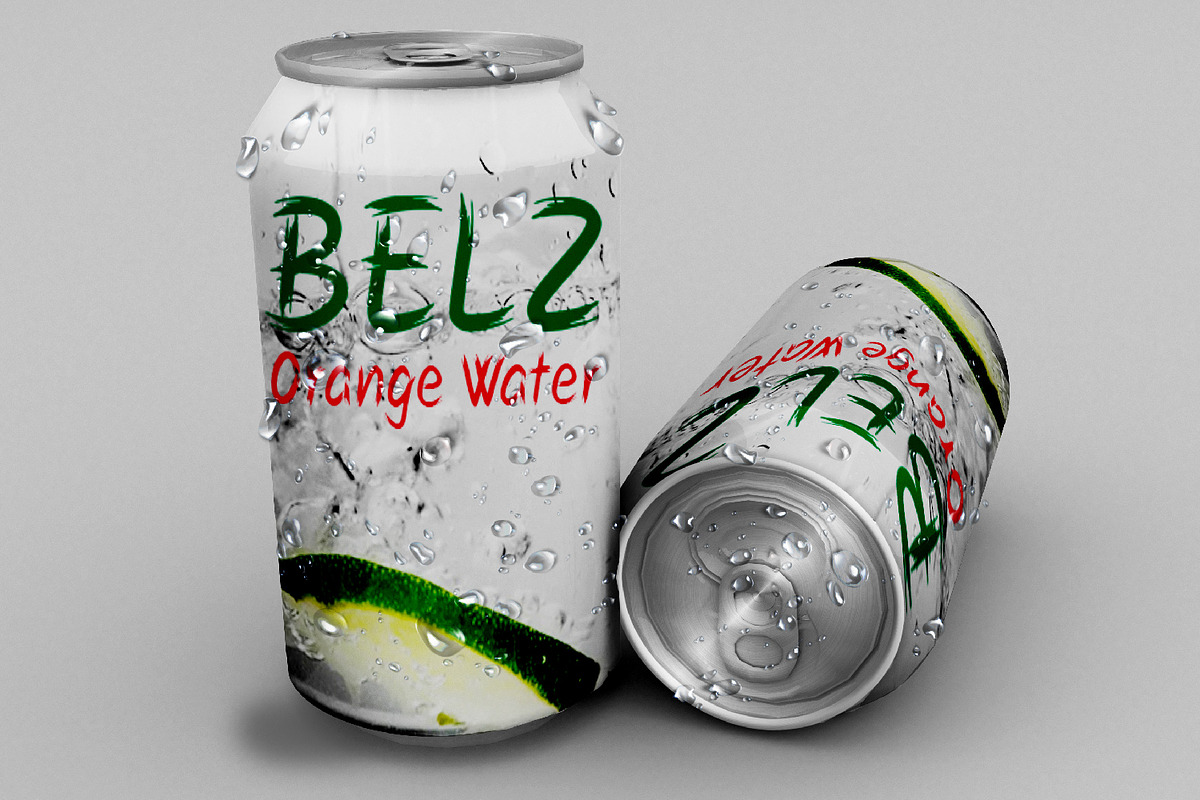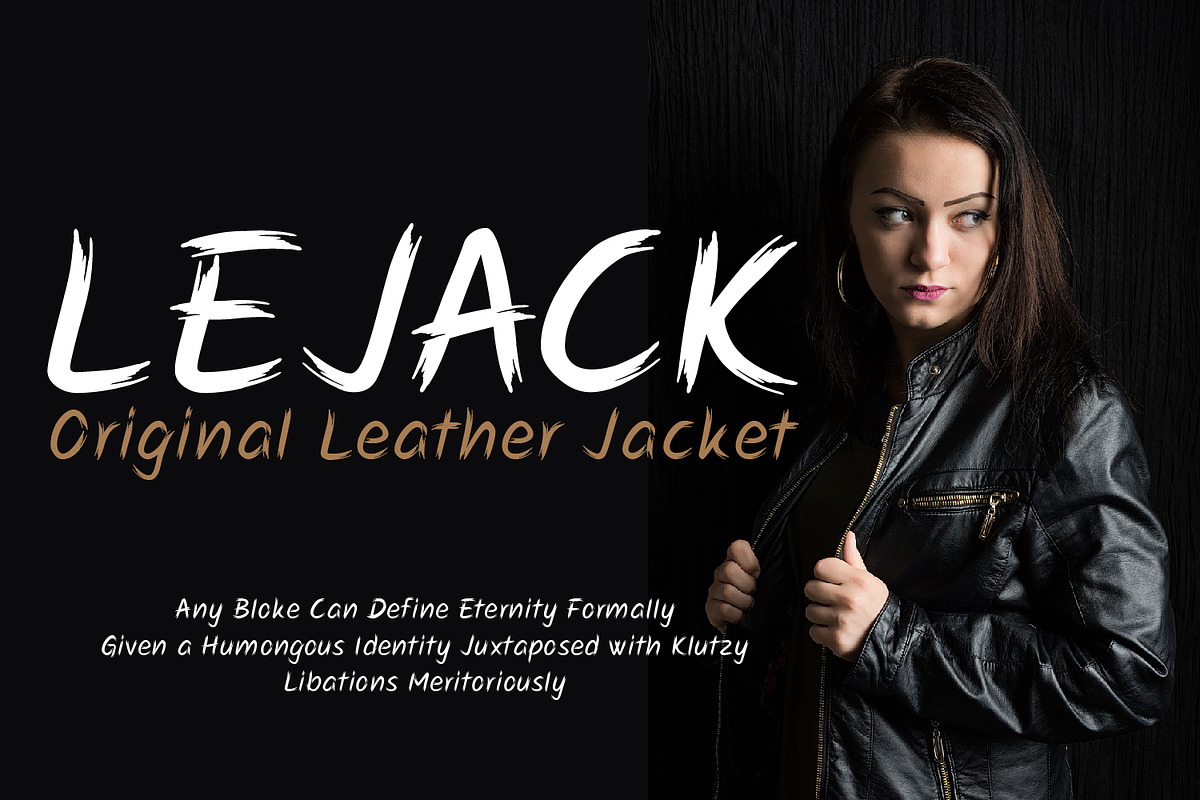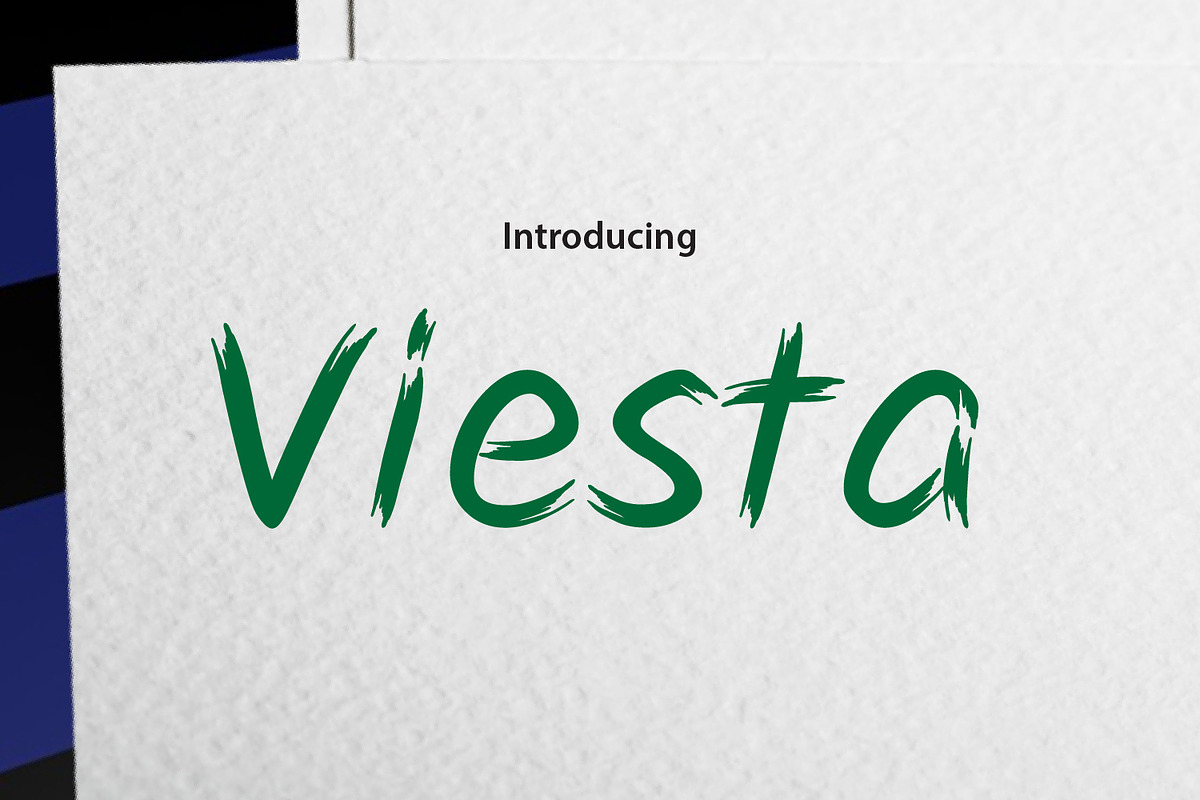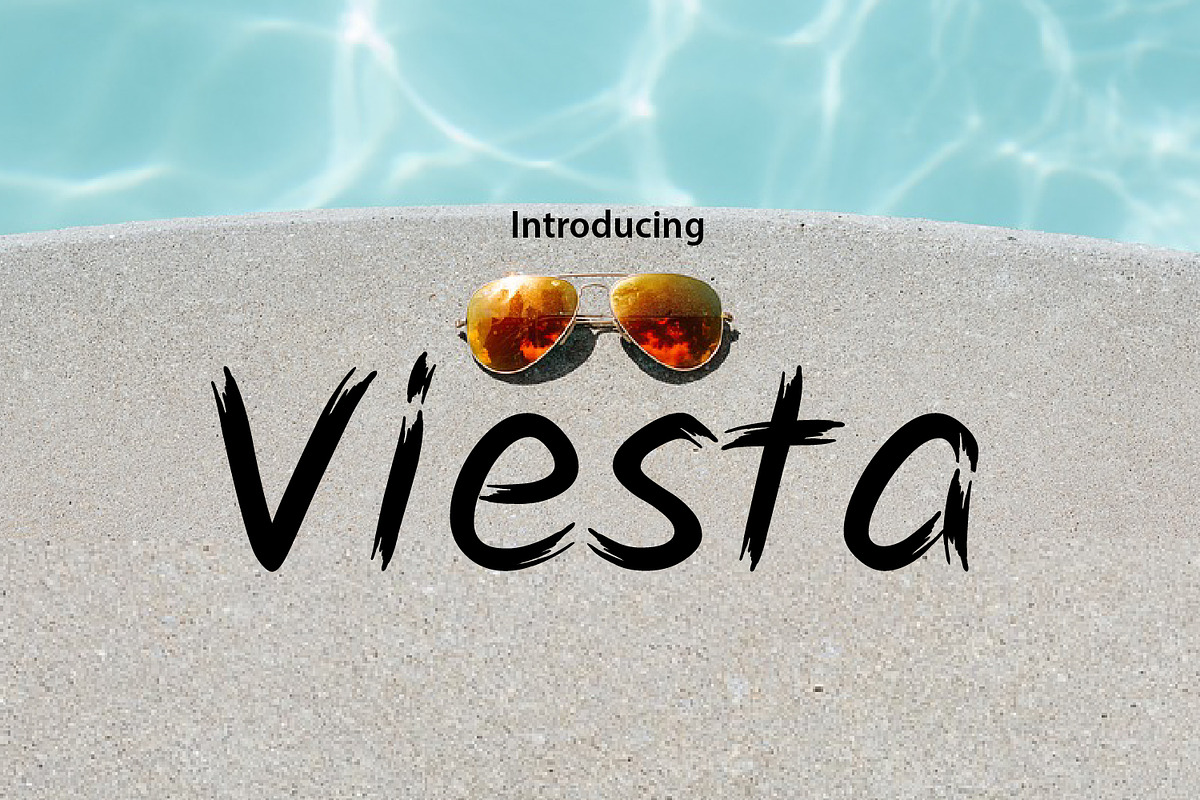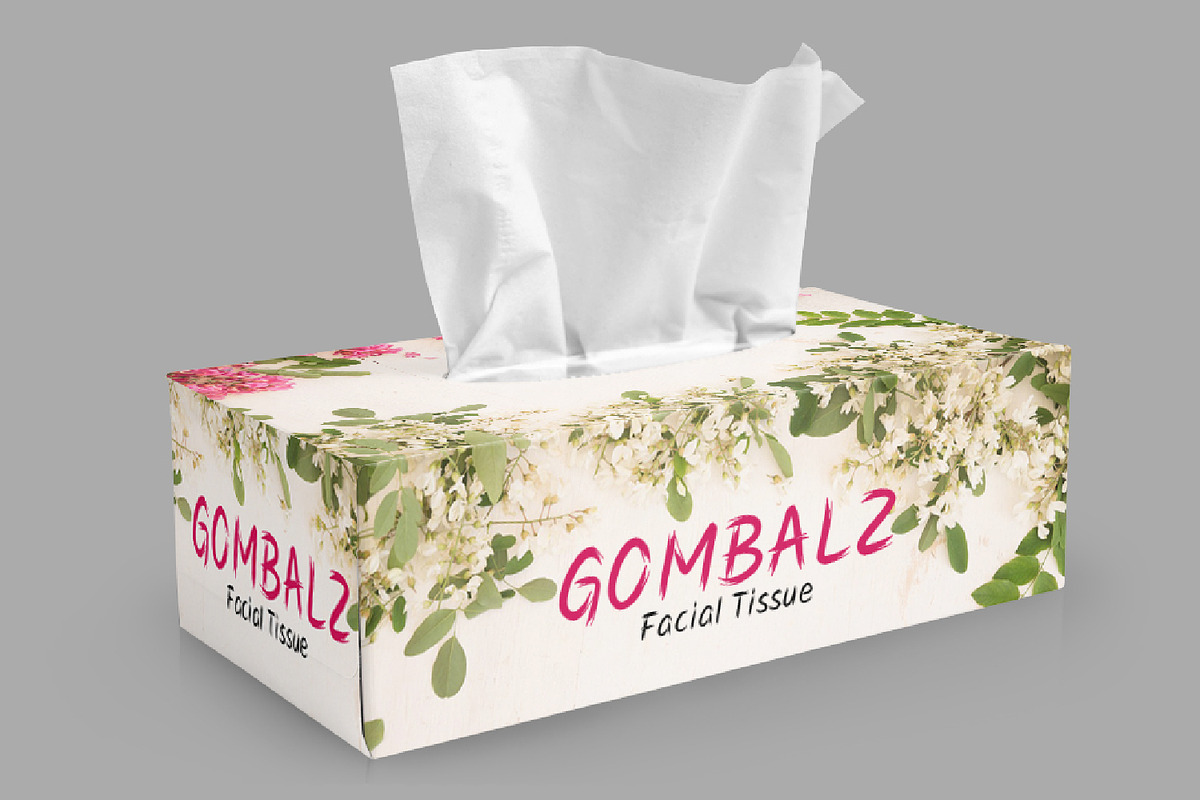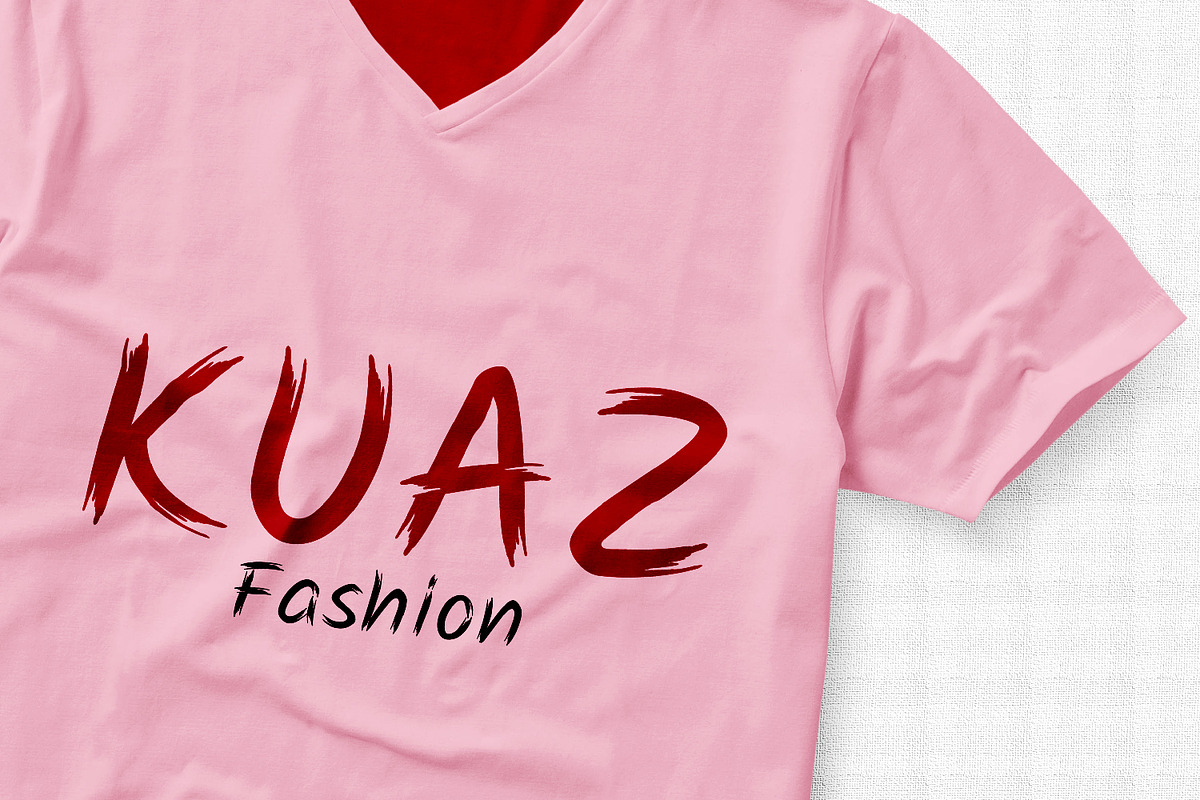
Viesta Brush
Viesta Brush is designed to give your work a fresh and creative feel, Suitable for branding, handwritten quotes, packaging, merchandise, blog design, modern advertising design, invitation, Book Cover, tittle, Invitation, special events, birthday, custom mug, pillow, t-shirts, etc.